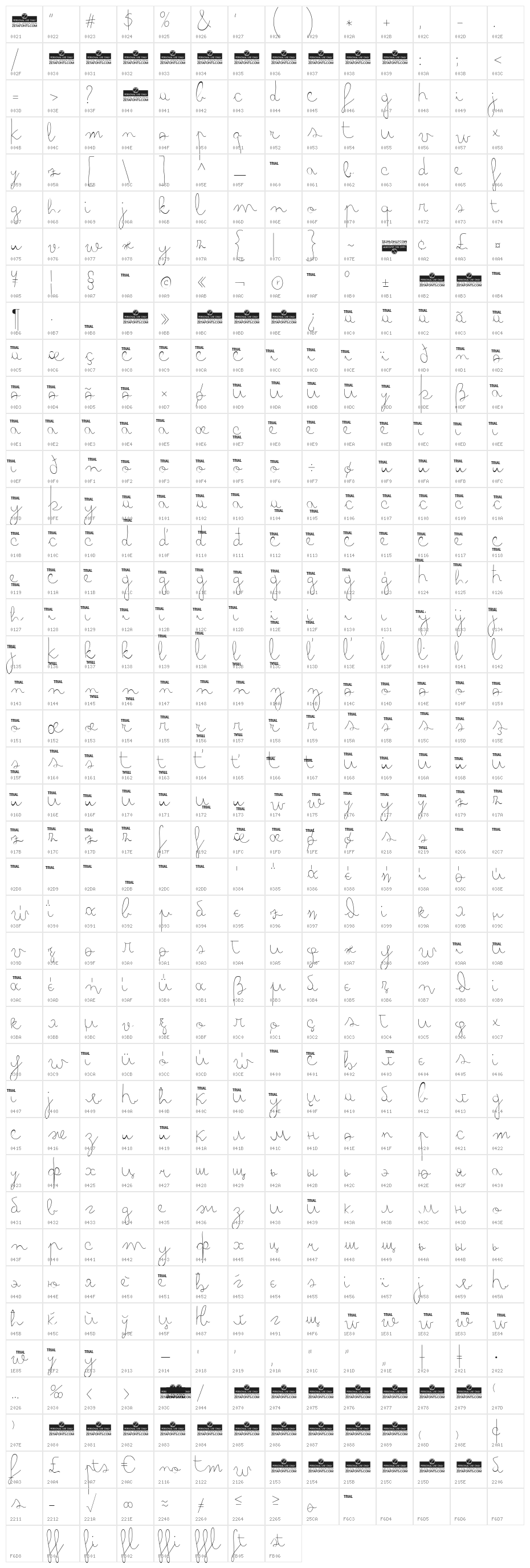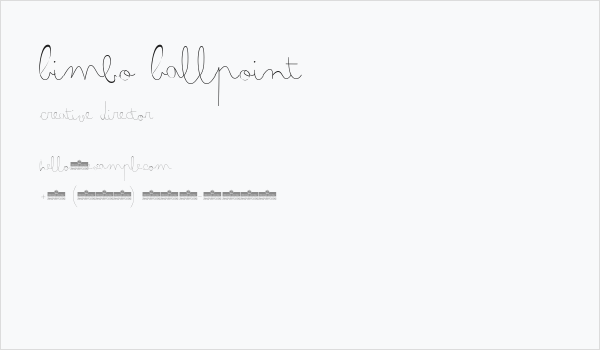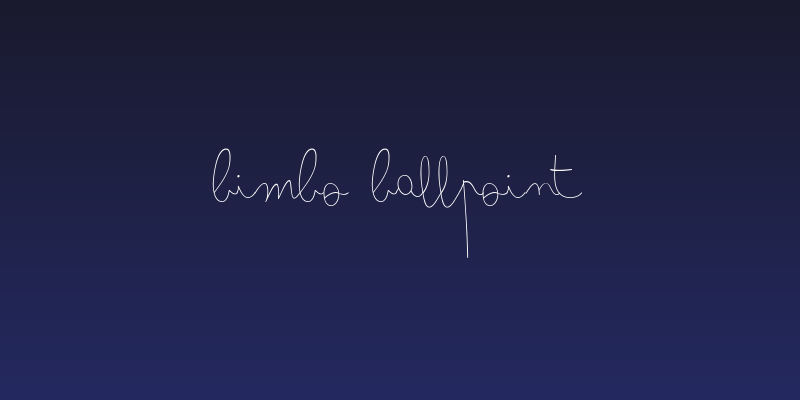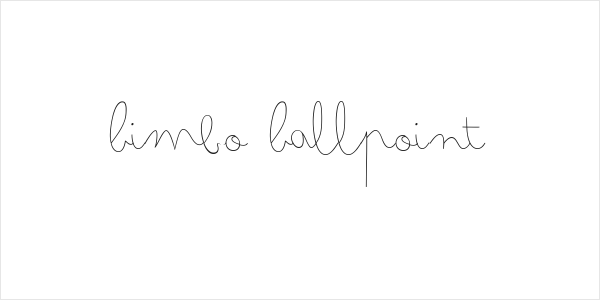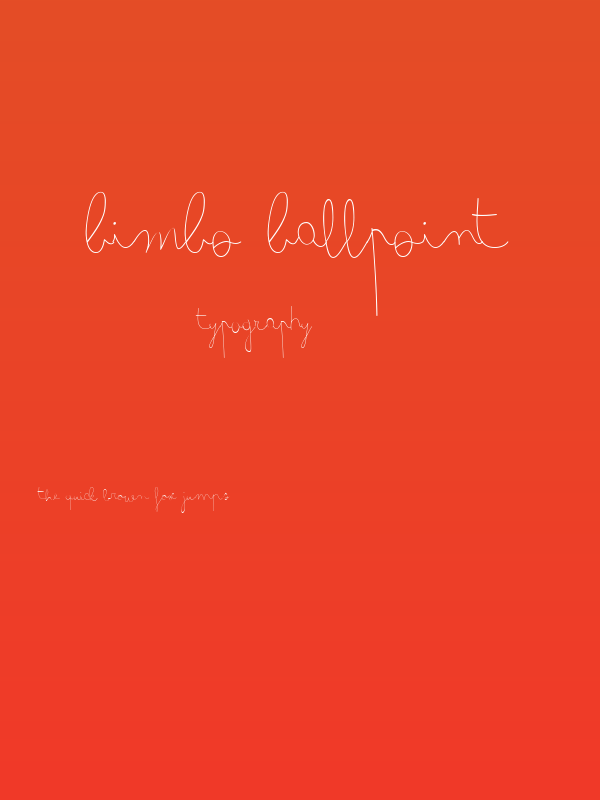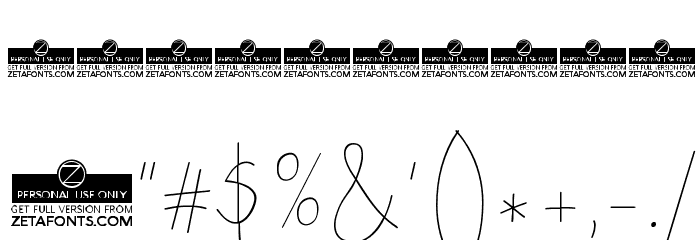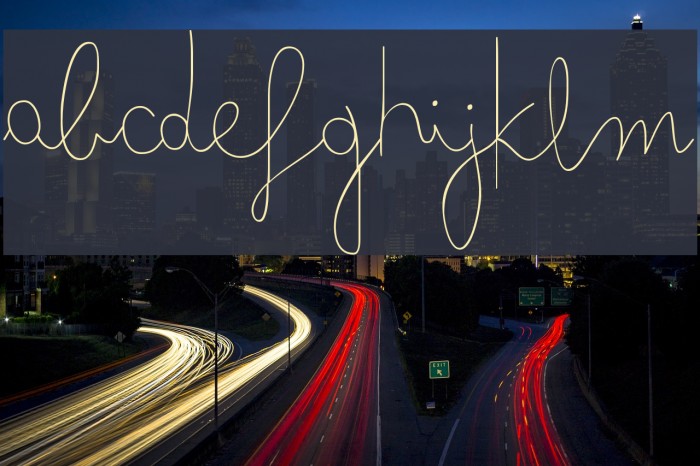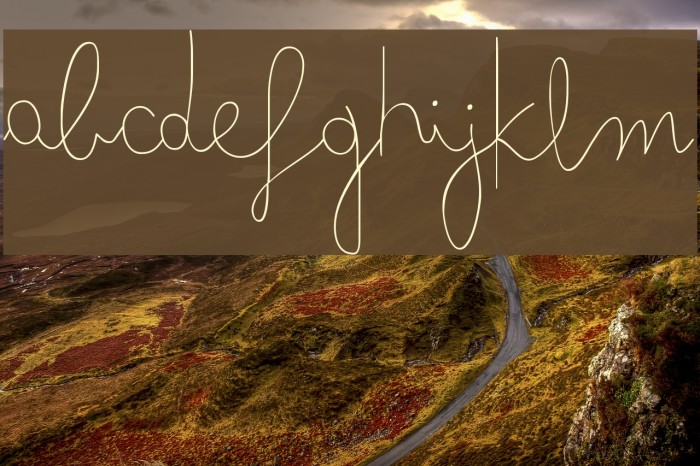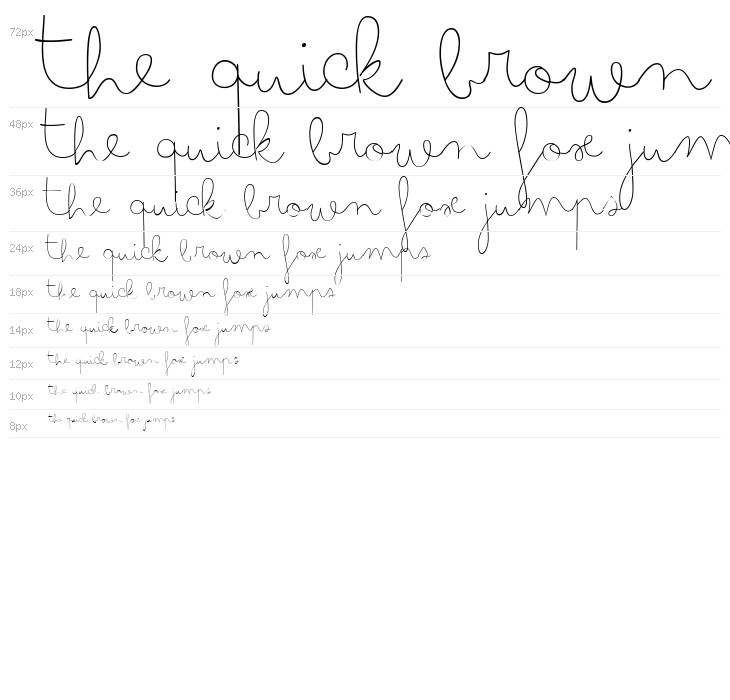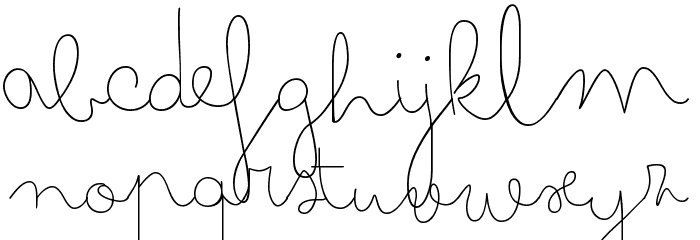
Bimbo Ballpoint Font
Bimbo Ballpoint Description
This font features a playful and whimsical handwritten style, reminiscent of casual ballpoint pen writing. The letters are connected in a fluid, cursive manner, giving it a continuous flow that is both elegant and informal. The strokes are thin and consistent, with a slight variation that adds to its organic feel. The lowercase letters are particularly distinctive, with unique loops and curves that enhance its charming appearance. The uppercase letters maintain a similar style, ensuring cohesion throughout. This font includes a full set of numerals and a variety of special characters, making it versatile for different uses.
| Overall Style | Casual, Whimsical |
| Use Case | Invitations, Personal projects, Greeting cards |
| Proposed Projects | Ideal for personal projects, greeting cards, invitations, and any design requiring a casual, handwritten touch. |